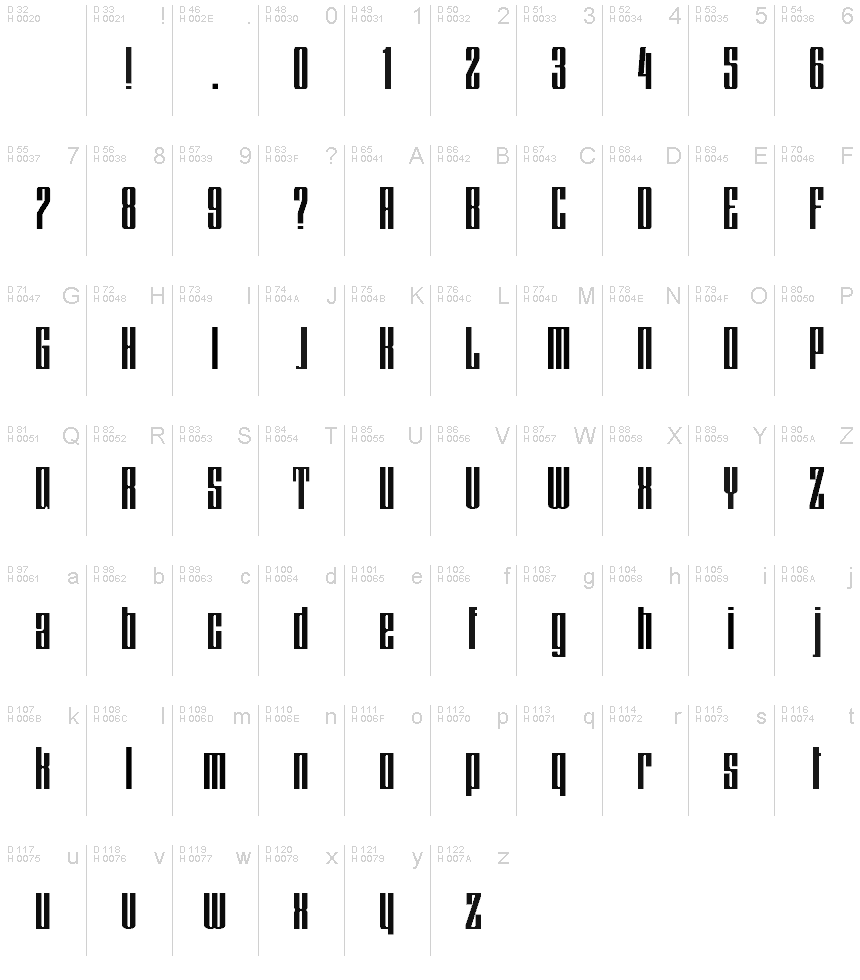
HFF Lasdof Twunyliven
Based on Herald Square from Condensed Alphabets by Dan Solo.
Lasdof Twunyliven is pronounced "last day of twenty eleven" bcause the font was completed and first released at alt.binaries.fonts on December 31, 2011. This proves that I am really, really good when it comes to spelling (and I haven't even mentioned grammar.) 8D
HFF Lasdof Twunyliven is based on Herald Square from "Condensed Alphabets: 100 Complete Fonts" by Dan X. Solo, first published by Dover Publications in 1986. Herald Square is also seen in "The Solotype Catalog of 4,147 Display Typefaces".
The font name is a play on words. The font was completed and released on December 31, 2011, the "last day of twenty eleven" and so the font name.